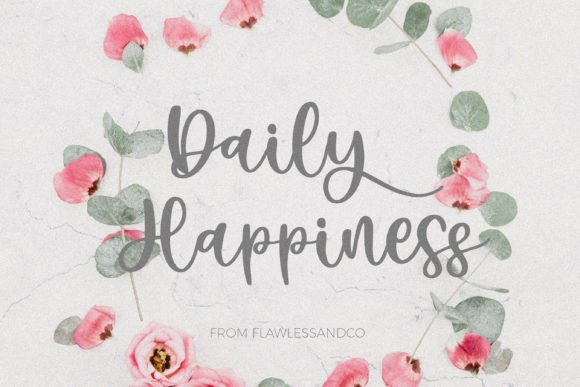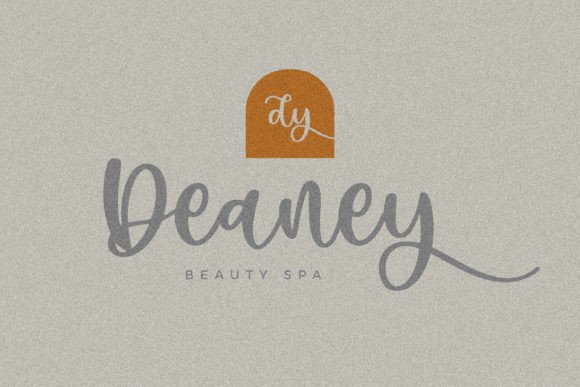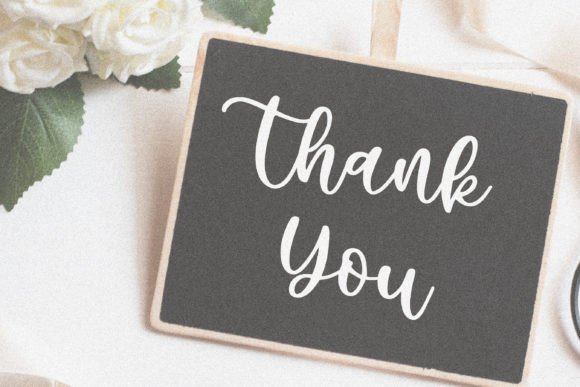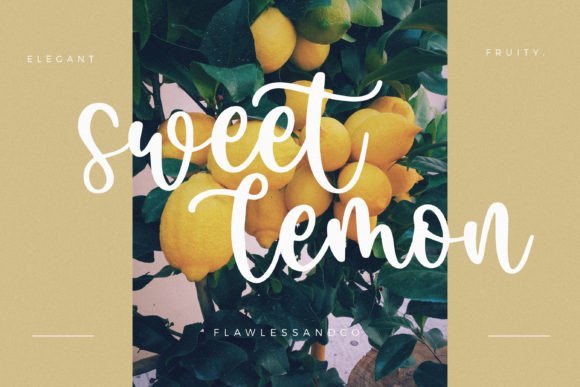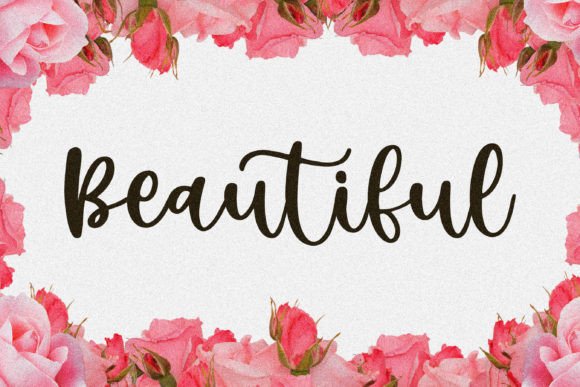
Potery Script Font
About Potery Script Font
“Potery Script” is a cute and girly handwritten script font that brings a playful and charming touch to your creative projects. Whether you’re seeking fonts for Instagram posts, social media graphics, or calligraphy scripts for DIY projects, “Potery Script” has the versatility and style to transform any creative idea into a delightful piece of art.
The font’s charm lies in its ability to convey a sense of fun, creativity, and femininity. Its handwritten script style exudes a warm and friendly vibe, making it an ideal choice for projects where you want to create a visually engaging and inviting impression. “Potery Script” allows you to infuse your designs with a touch of cuteness and charm.
Whether you’re working on personal projects, crafting, digital art, or any creative endeavor, “Potery Script” provides the creative freedom to make your designs stand out. Its cute and girly aesthetic ensures that it can adapt to various themes and design aesthetics, making it suitable for a wide range of applications.
In summary, “Potery Script” is a versatile font that brings playfulness and charm to your creative projects. Its handwritten script style is suitable for a variety of applications, and its ability to convey cuteness and femininity sets it apart. With “Potery Script” in your font collection, your designs will have a friendly and inviting appeal that leaves a memorable impression.